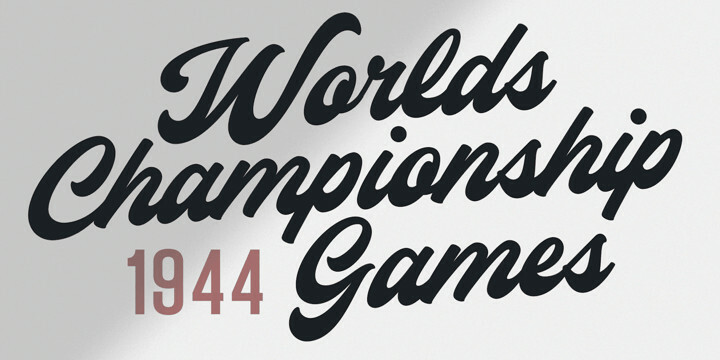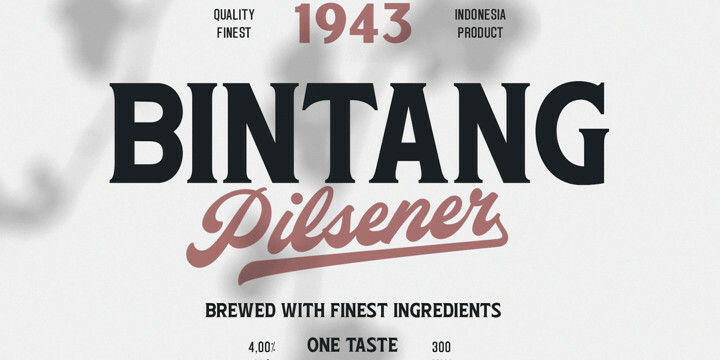
Capitaly Script Font Family
Capitaly Script Font FamilyCapitaly Script is a bold calligraphic typeface.
Created with pride and care, this lettering has the optimal appearance of a classic vintage logo, for a modern setting.
The font family consists of the styles Script (Regular) and Top (Upright).
Use asterisk * after a letter to make a swash letter.
Example: Ber*lin
Use _ or # or ¤ after any word to make a swash tail.
Example: Cursive¤ Letters_
Use multiple _ # ¤ after any word to make swashes of different length.
Example: Decorate______
The font is built with advanced OpenType functionality and has a guaranteed top-notch quality, containing stylistic and contextual alternates, ligatures and more features; all to give you full control and customizability.
It has extensive lingual support, covering all Latin-based languages, from Northern Europe to South Africa, from America to South-East Asia.
It contains all characters and symbols you’ll ever need, including all punctuation and numbers.